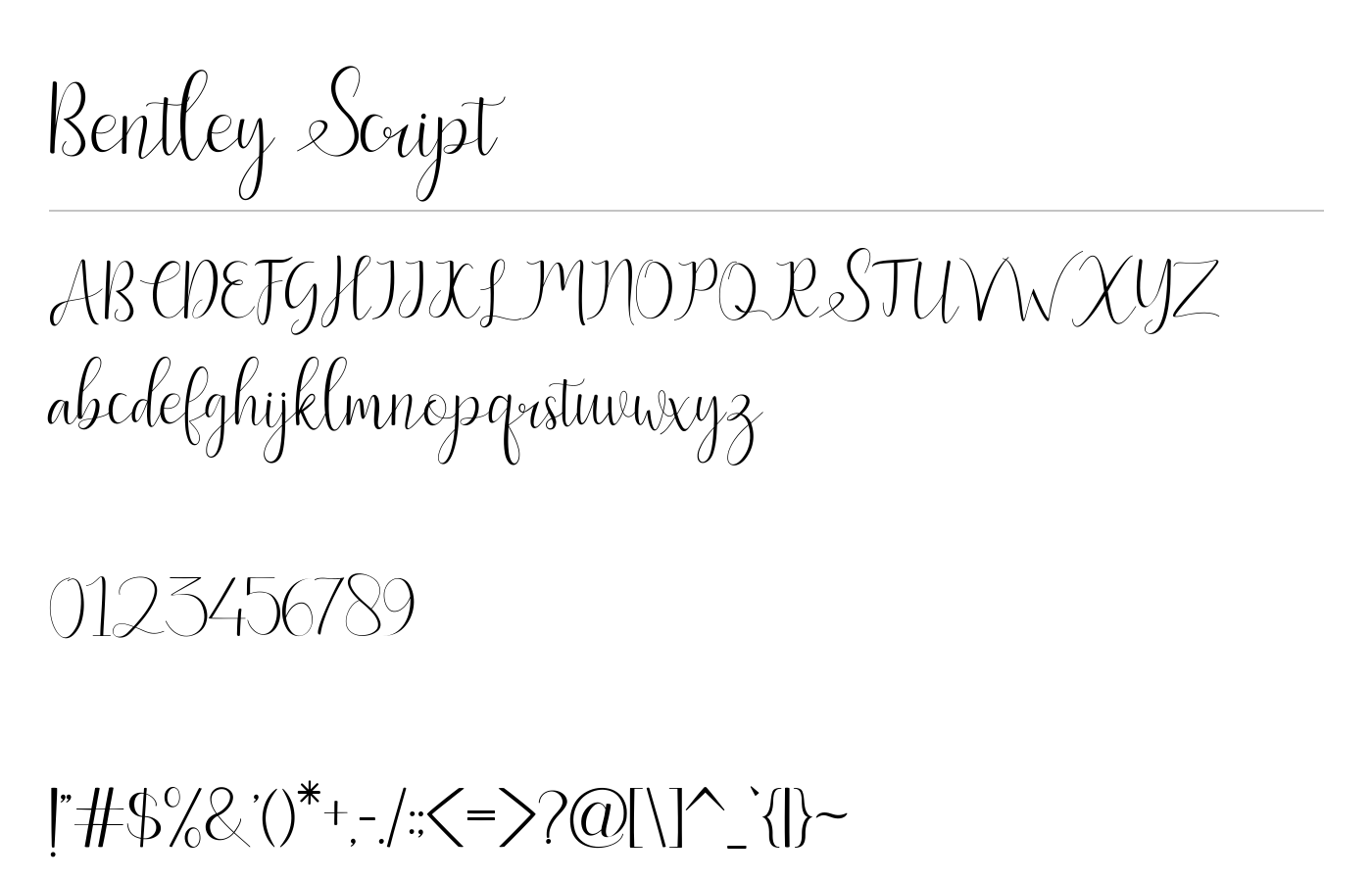
Bentley Script is a delicate and elegant handwritten script font featuring slender, flowing strokes that evoke a refined and graceful style. Its tall, narrow letterforms with subtle loops and curls create a sophisticated and airy feel, making it perfect for invitations, luxury branding, and feminine design projects where a touch of charm and elegance is desired. This font works well in decorative titles and headlines that require a stylish, personal touch without overwhelming the overall design.
Bentley Script Font
About Bentley Script Font